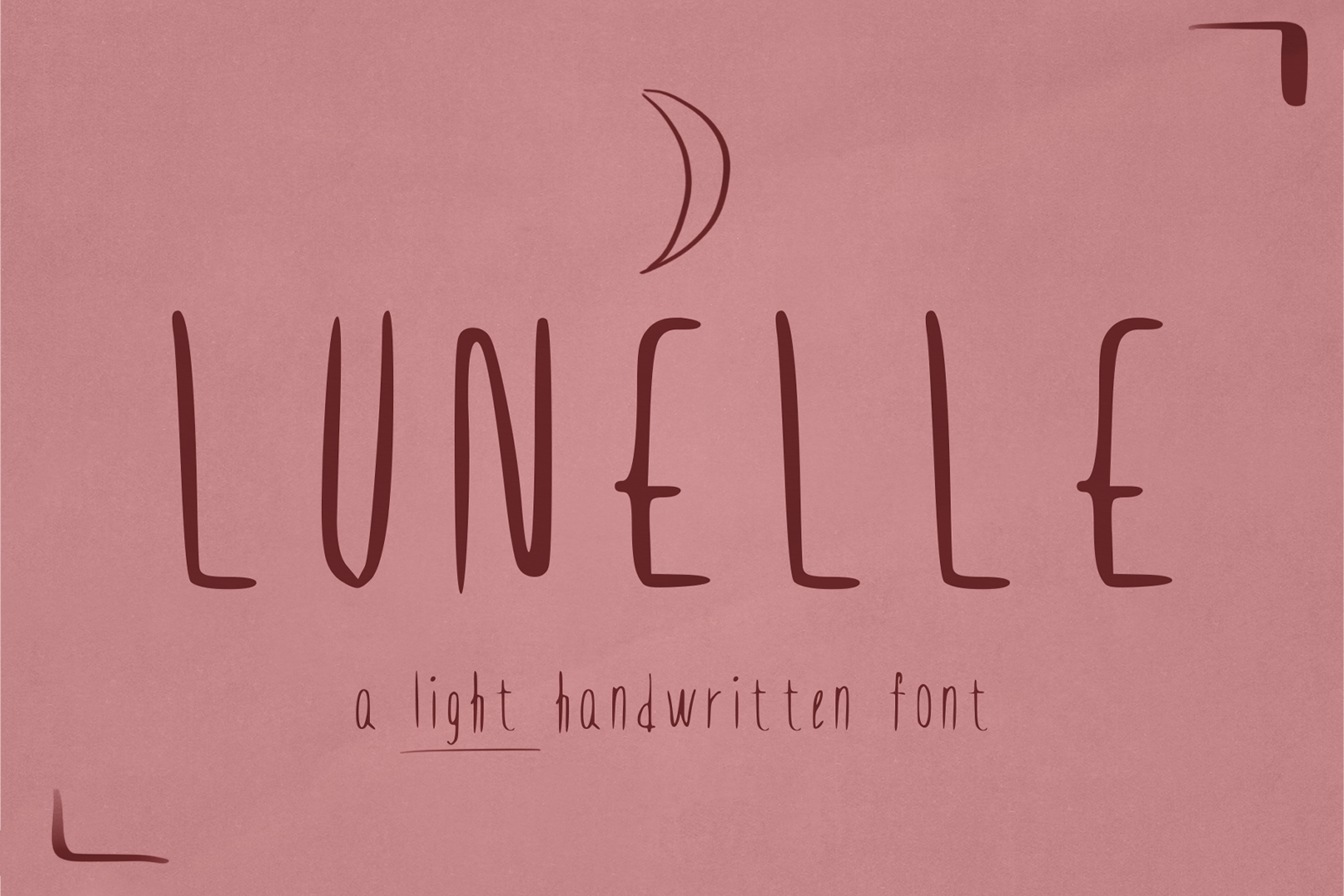
Lunelle – A Light Handwritten Font
Lunelle — a soft, handwritten font for calm design.
Lunelle is a light, airy typeface with a handwritten feel and quiet personality. Its tall letters and soft irregular curves make it perfect for minimalistic branding, aesthetic quotes, packaging, planners, and more.
Lunelle is both artistic and versatile — ideal for creative businesses, mindful projects, and anyone who loves soft, emotional typography.